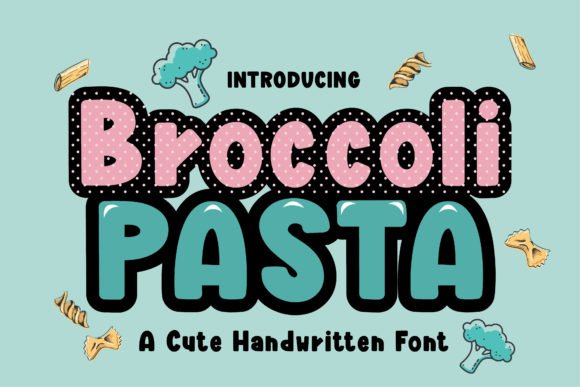
The Perfect Recipe for a Playful Touch
Have you ever stumbled upon a font that just makes you want to create something new and exciting? That’s exactly what happened when we discovered Broccoli Pasta Font. Its carefree charm and laid-back vibe are the perfect ingredients to add a dash of whimsy to your designs.
Broccoli Pasta Font is a delightful display font that’s designed to bring a smile to your face and a touch of fun to your creations. Whether you’re crafting product packaging, designing t-shirts, or developing labels and posters, this font is sure to add a playful twist to your work. Its informal feel makes it an invaluable asset for designers looking to inject a bit of personality into their projects.
So why not get creative with Broccoli Pasta Font and see what delicious designs you can whip up? With its unique charm and versatility, this font is sure to become a staple in your design arsenal.
Key Features of Broccoli Pasta Font
- Font Style: A unique, hand-drawn font with a playful and whimsical feel.
- Unique Characteristics: Features a distinctive, hand-crafted look with subtle imperfections, giving it a personal touch.
Review of Broccoli Pasta Font
When I first stumbled upon the Broccoli Pasta Font, I was intrigued by its unique design. ✨ The font’s playful, hand-drawn feel immediately caught my attention, and I could see its potential in adding a whimsical touch to children’s book illustrations or creative food packaging.
Here are some aspects where the font shines:
- ✨ The font’s custom letterforms and flourishes add a charming, personal touch to text.
- ✨ The font’s OpenType features allow for some interesting ligatures and swash variations, which can enhance the overall aesthetic.
- ✨ The font’s width and spacing can be adjusted to suit various design contexts, from informal to more formal settings.
- ⚠️ The font may not be the best choice for body text, as its irregular letterforms can be distracting at larger sizes.
- ⚠️ The font’s character set is not comprehensive, so you may need to supplement it with additional glyphs for certain languages or special characters.
Overall, I think the Broccoli Pasta Font is a delightful addition to any designer’s toolkit. While it may not be the most practical choice for every project, its unique personality and customization options make it a great fit for the right creative brief.
Broccoli Pasta Font is a playful and whimsical font, making it perfect for:
- Children’s books and educational materials.
- Food and cooking-related projects.
- Whimsical and creative designs.
For best results, use Broccoli Pasta Font in bold or italic styles to add emphasis and visual interest to your designs.